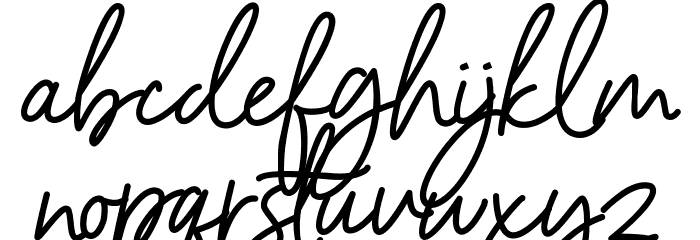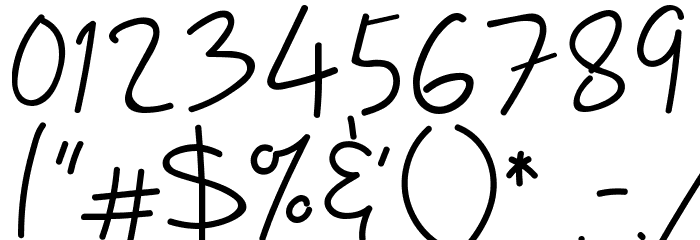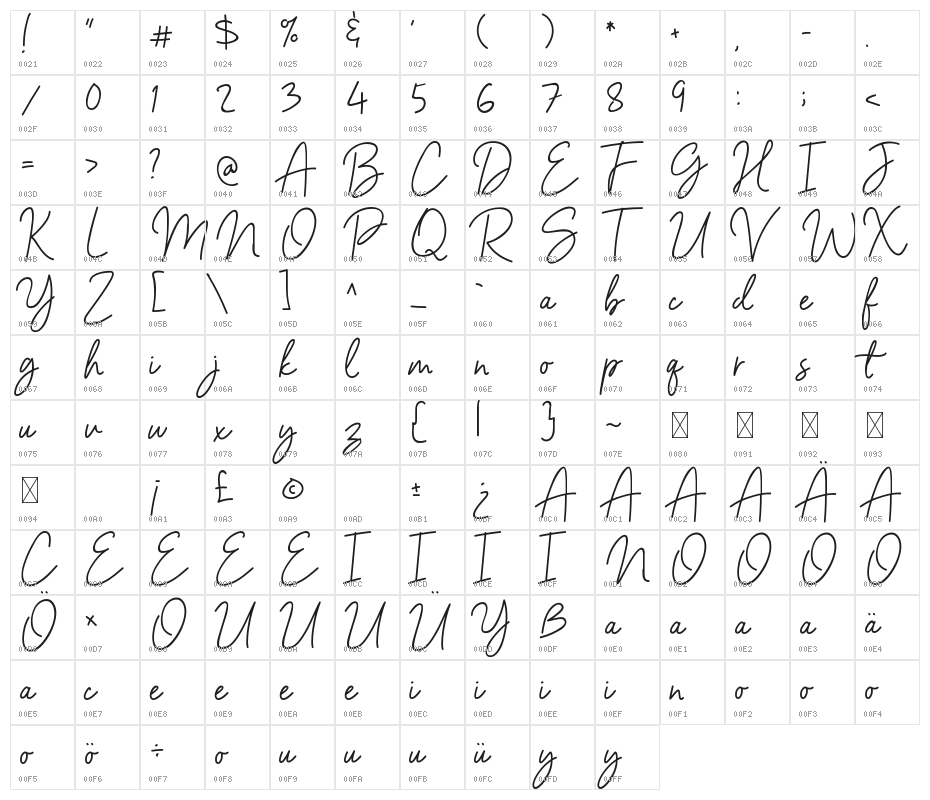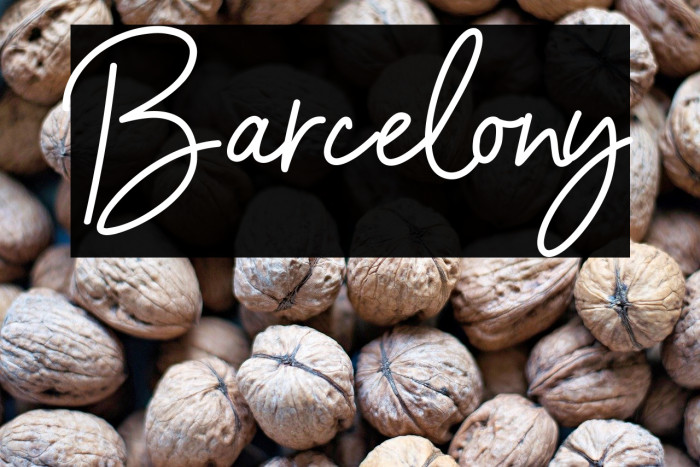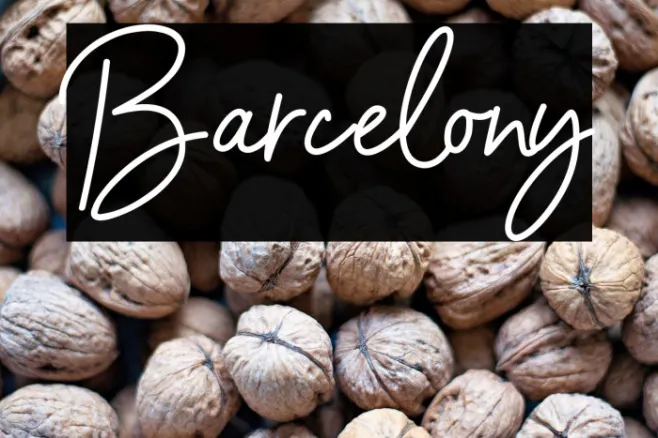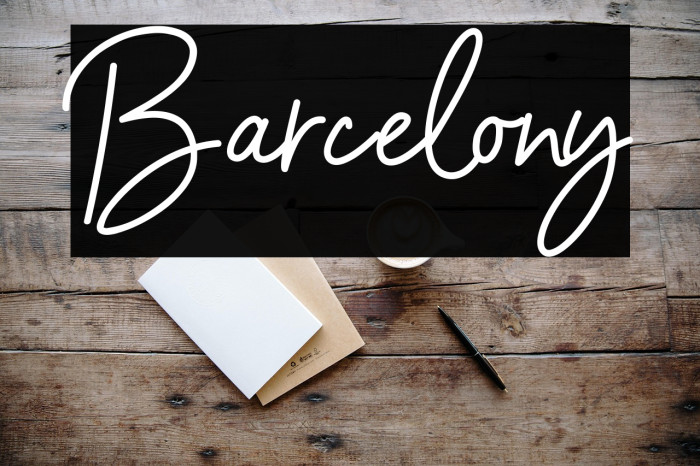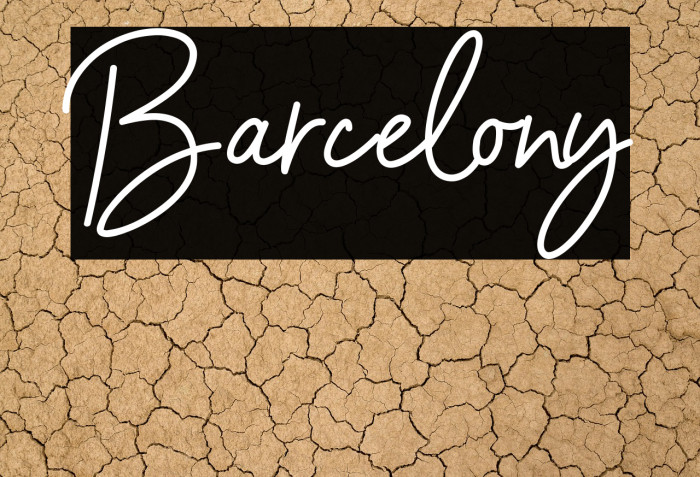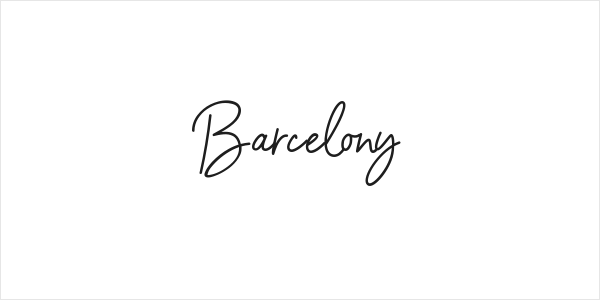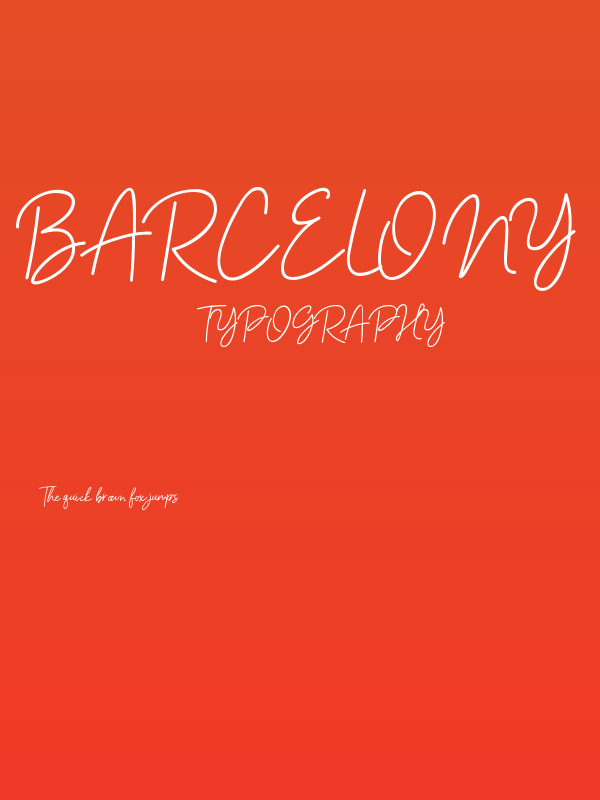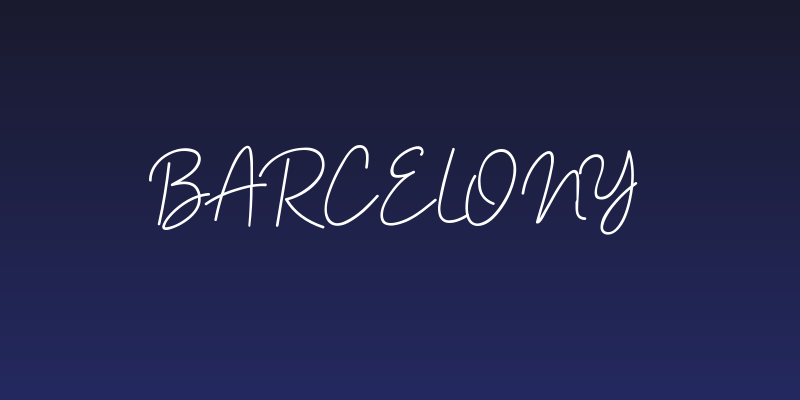
Barcelony Font
This font features a lively and flowing script style, reminiscent of elegant handwriting. The uppercase letters are tall and slender, with a slight slant that adds a dynamic feel. The lowercase letters are more compact, maintaining the same fluidity and connectedness. Numbers and special characters follow the same cursive style, ensuring consistency across all characters. The strokes are smooth and continuous, giving the font a sense of movement and grace. This font is ideal for projects that require a personal touch, such as invitations, greeting cards, or branding materials that aim to convey sophistication and warmth.
A lively, flowing script font with elegant, connected strokes.
- Proposed Projects: Ideal for invitations, greeting cards, personal branding, and elegant signage.
- Overall Style: Elegant, Handwritten
- Use Case: Logos, Invitations, Greeting Cards